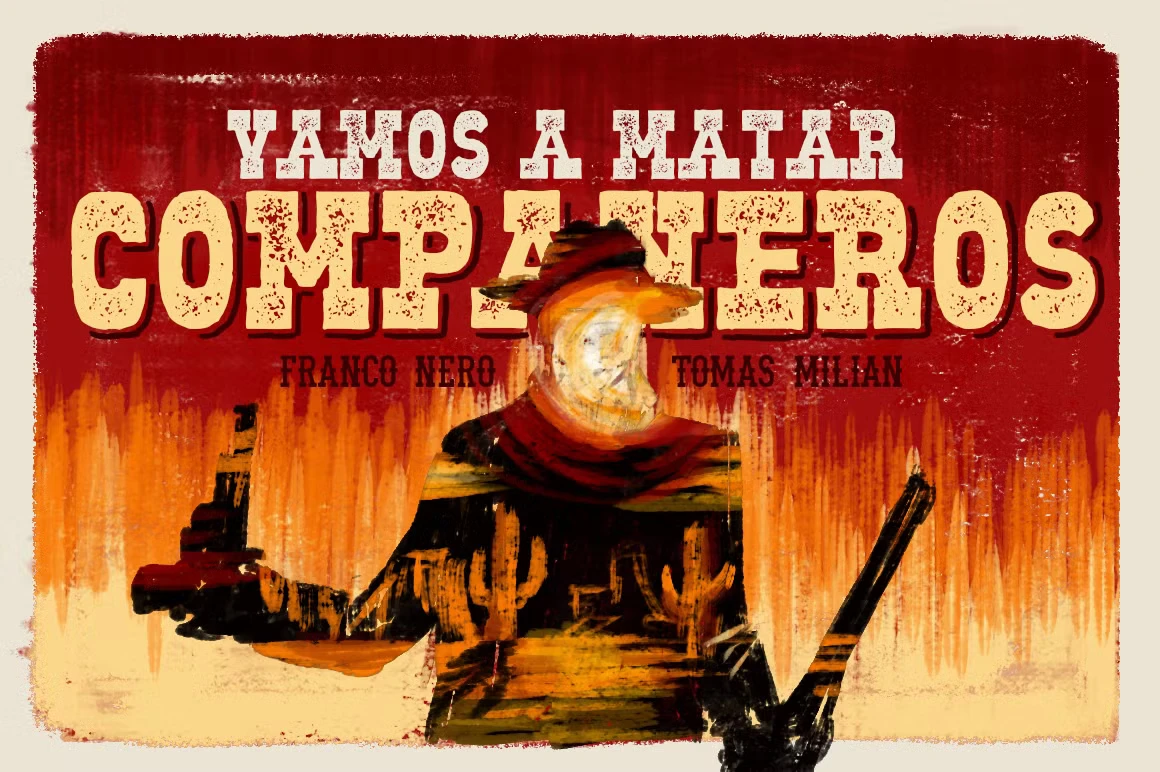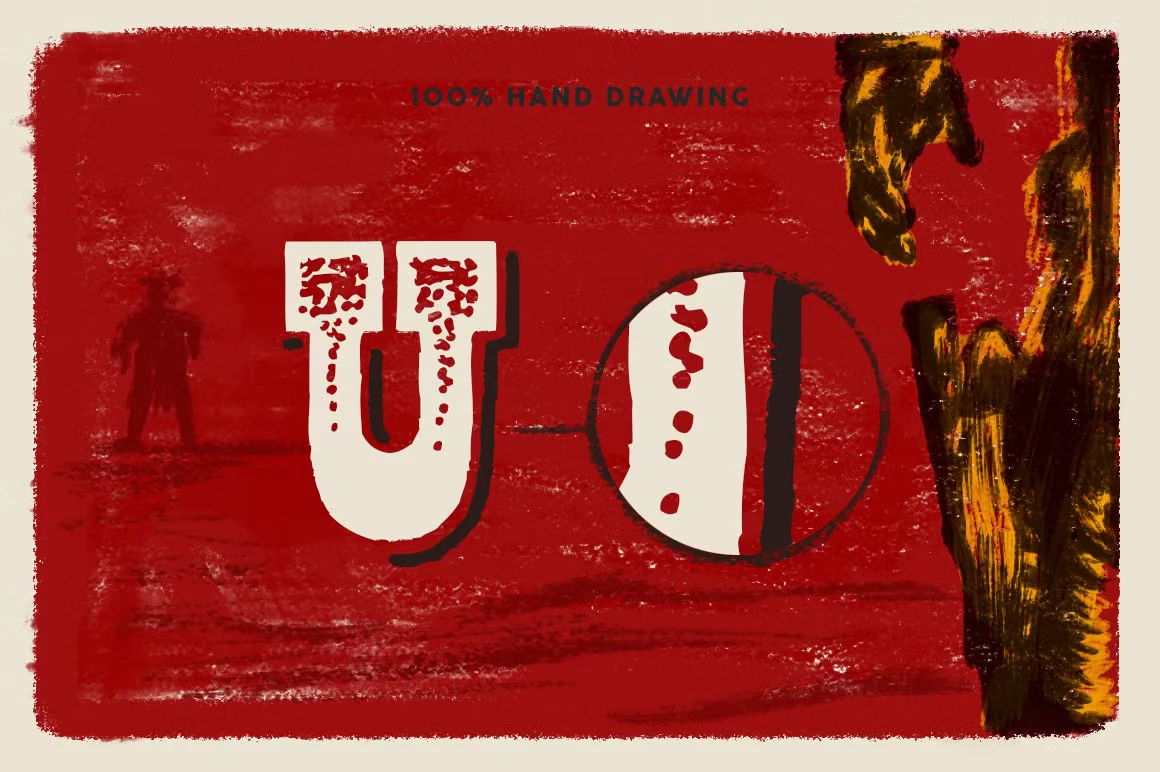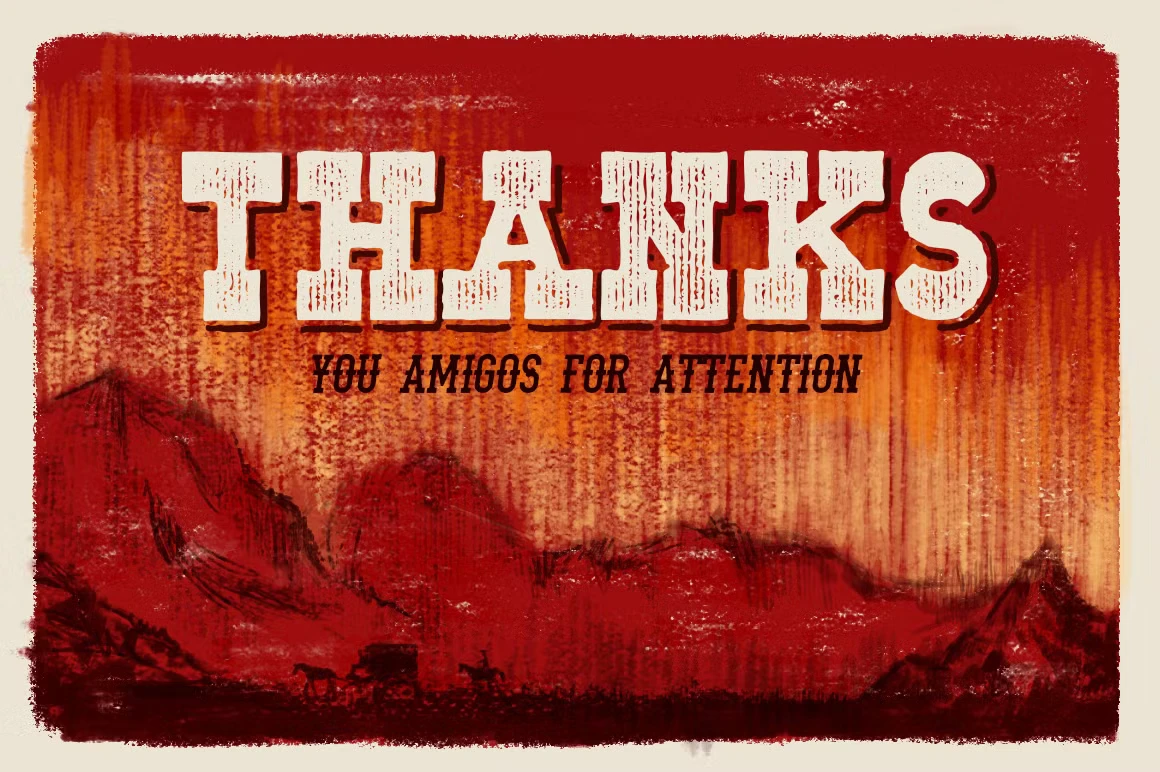
Old West Font Family
Old West is a bold, cinematic font family inspired by the iconic style of spaghetti western films. Influenced by the soundtracks of Ennio Morricone and the visuals of Tarantino and Leone, it captures the atmosphere of dusty towns, tense standoffs, and vintage saloons. Designed for dramatic impact, it’s a perfect choice for posters, film titles, event branding, packaging, and any project aiming for a rugged, western feel with vintage flair.
Old West font styles
Old West Dot Gradient
Old West Halftone
Old West Regular
Old West Regular Shadow
Old West Shadow
Old West Stripes
Old West Vintage
Old West Spaghetti Regular
Old West Spaghetti Regular Italic